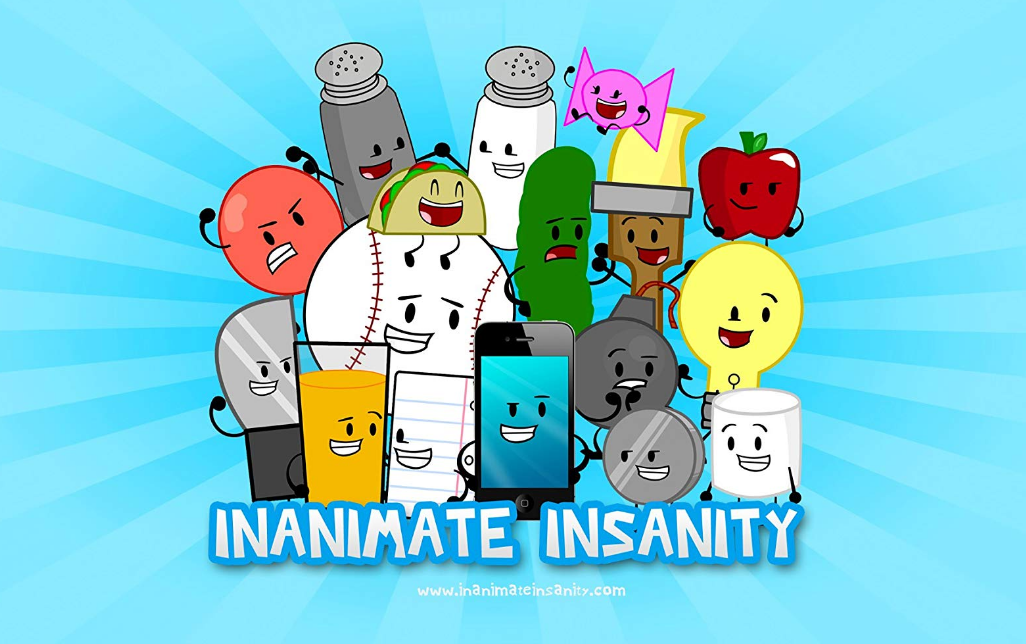
Inanimate Insanity Font
The title of the Inanimate Insanity series as seen above uses a fancy cartoon font called Mario Luigi 2 by Luigi Freak101. The title lettering from the first season appears to use a free font called Samdan by Gaut Fonts. Both fonts are available for free download in the Fonts Used section.